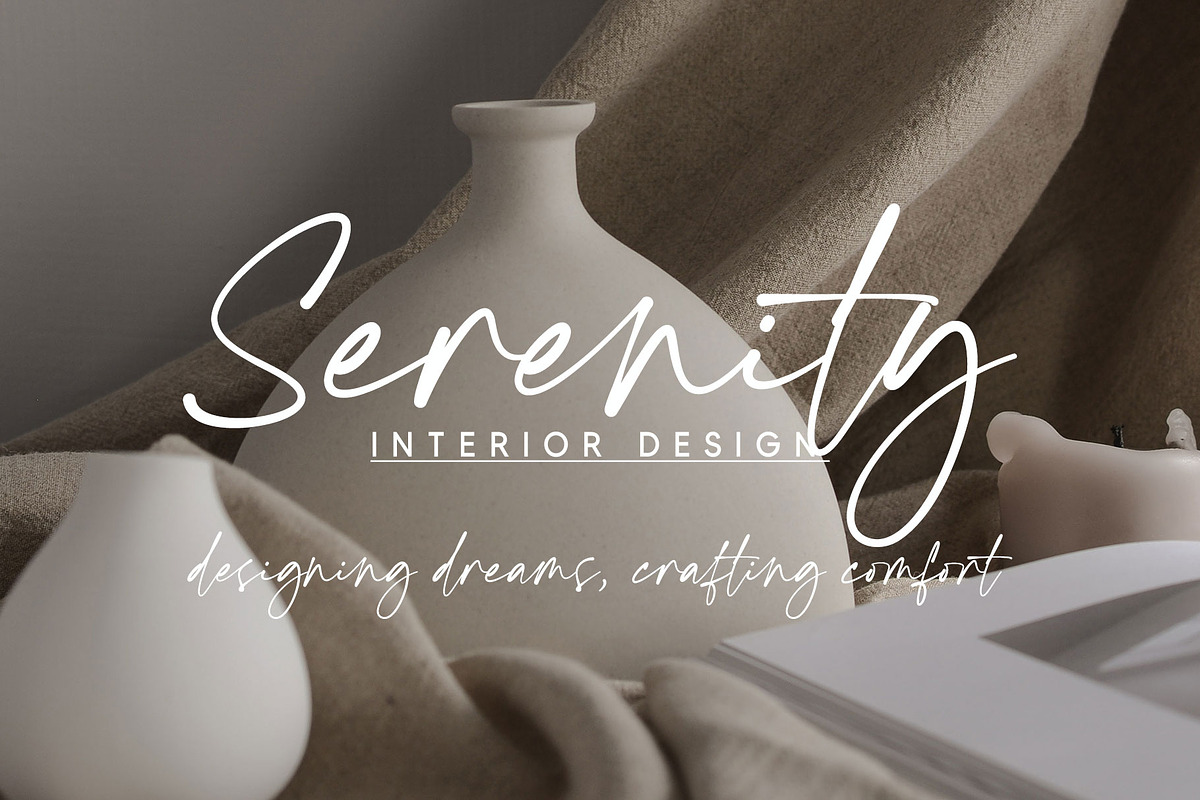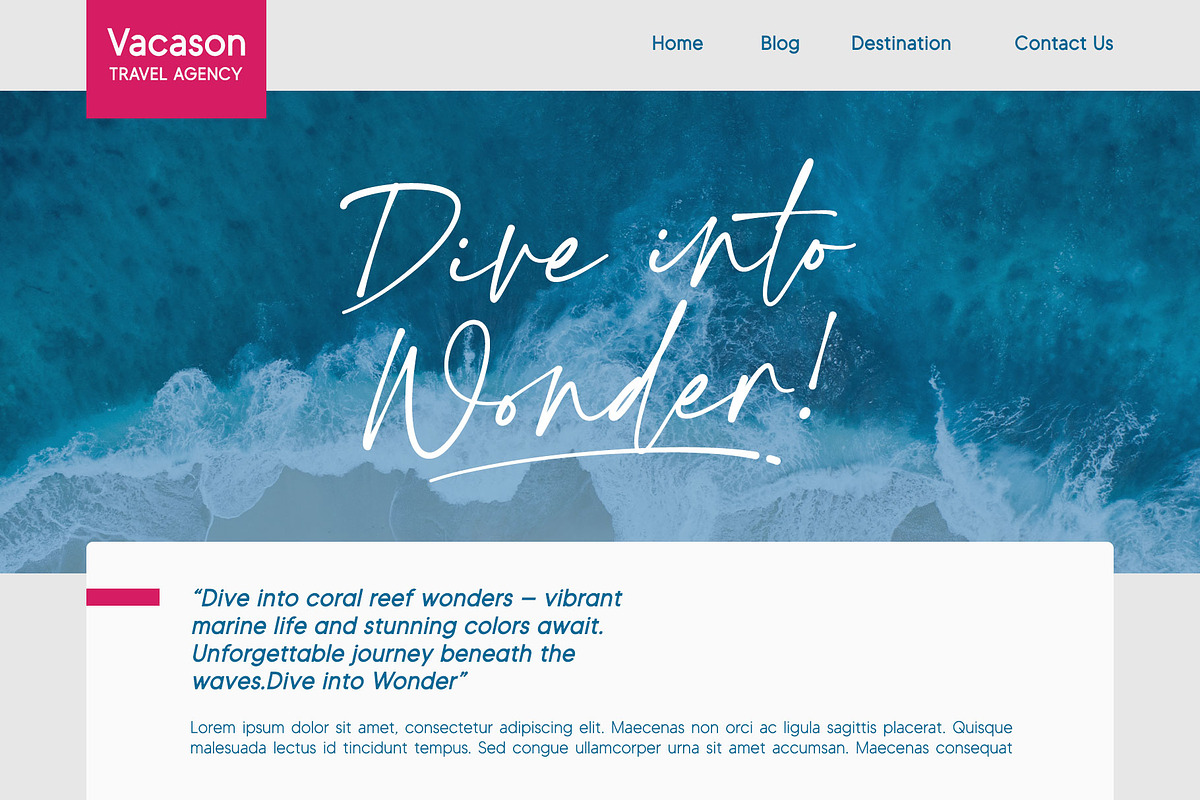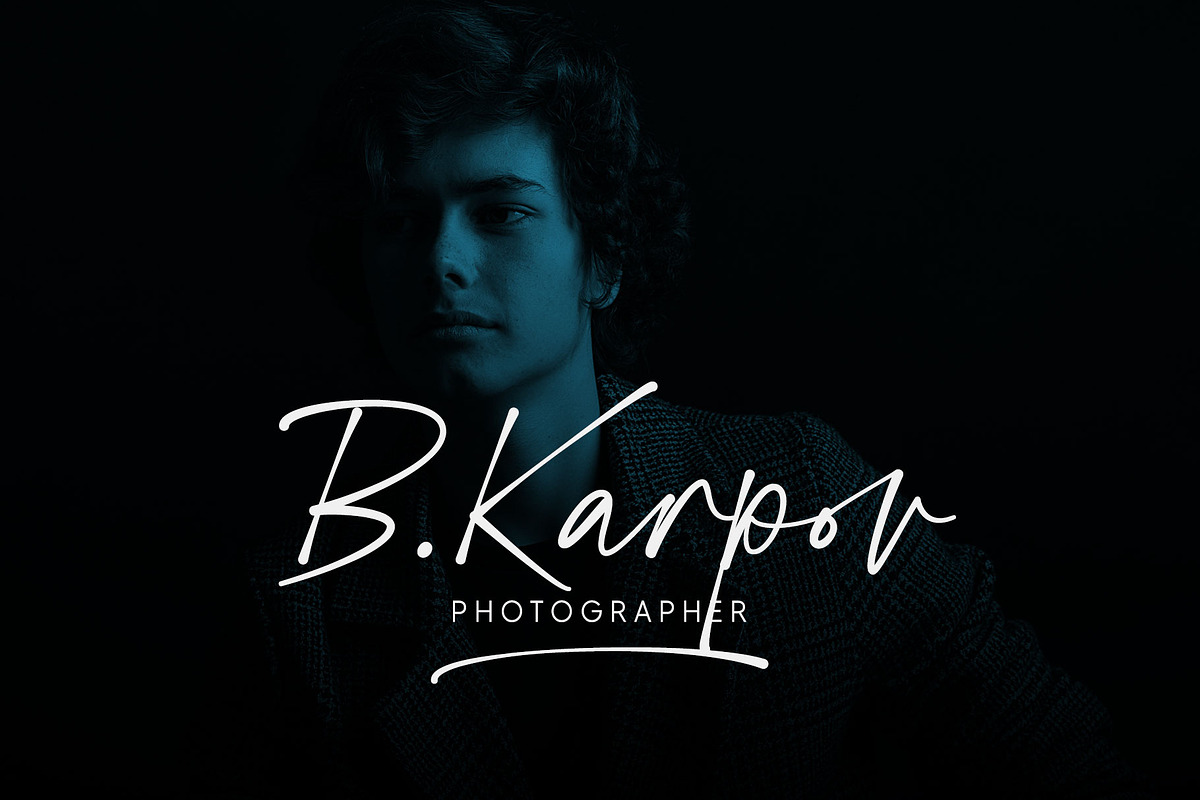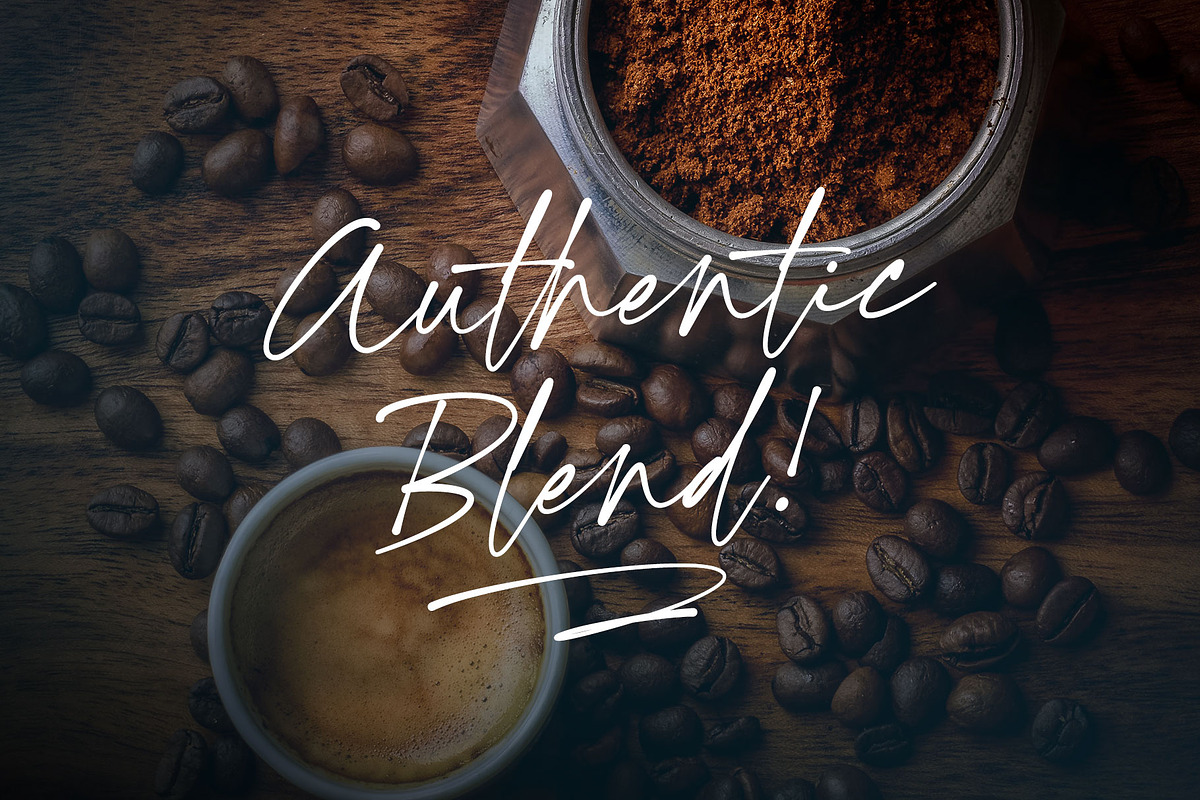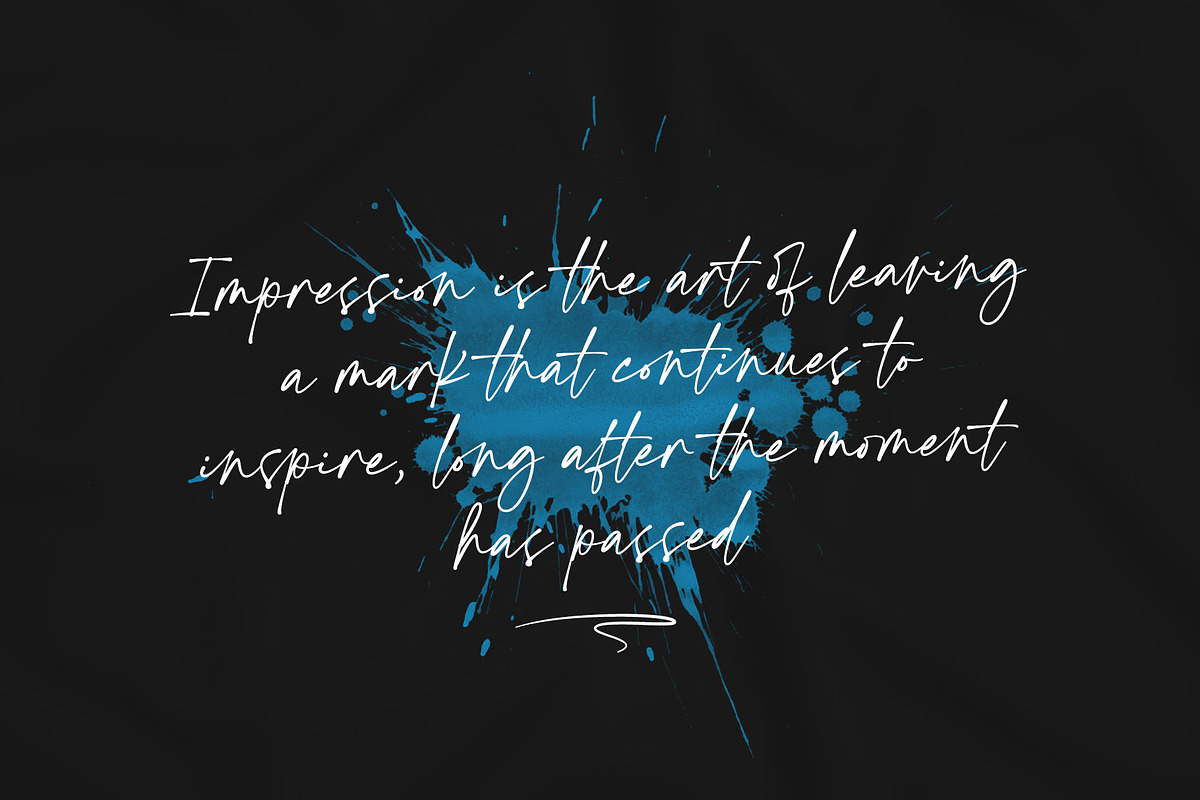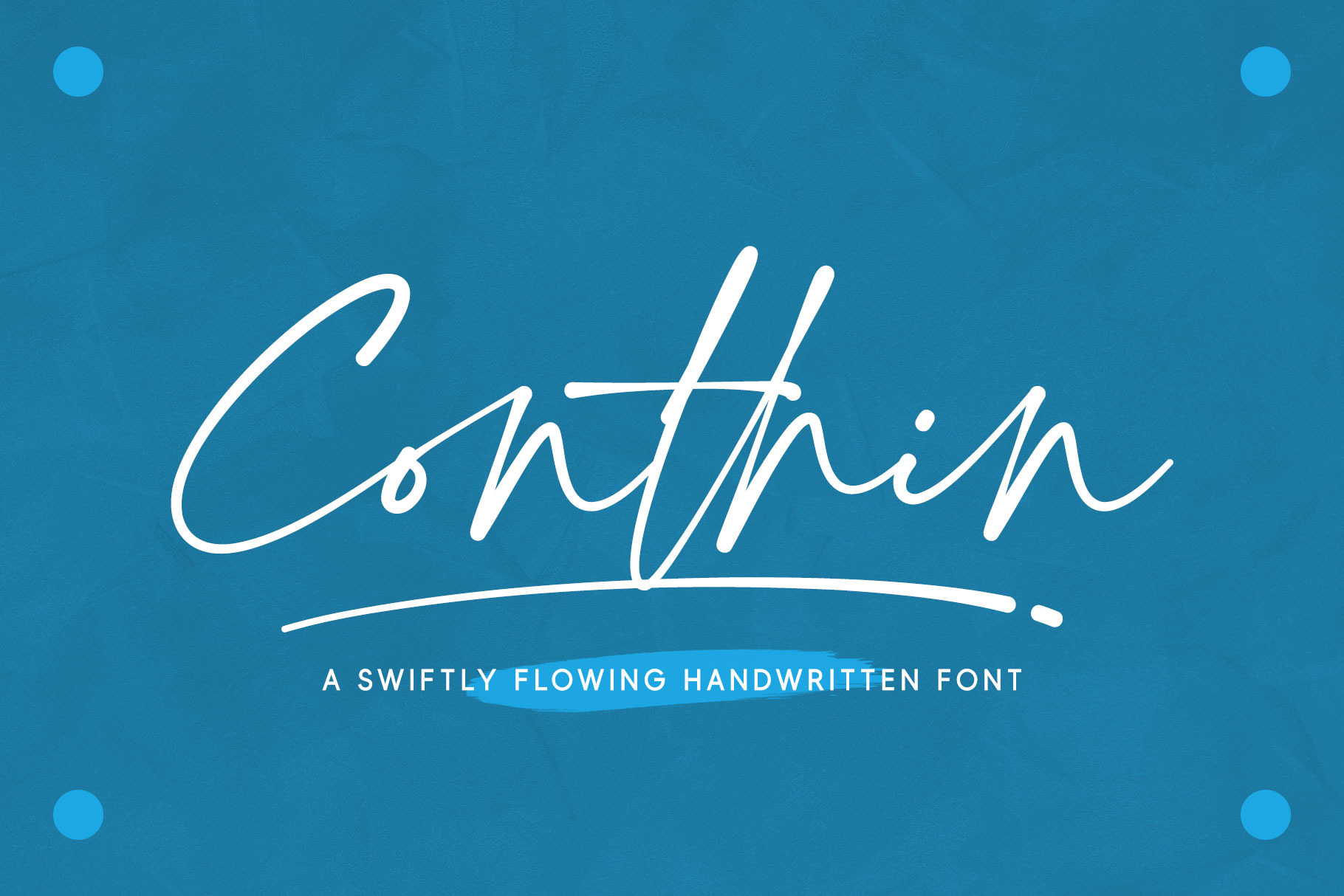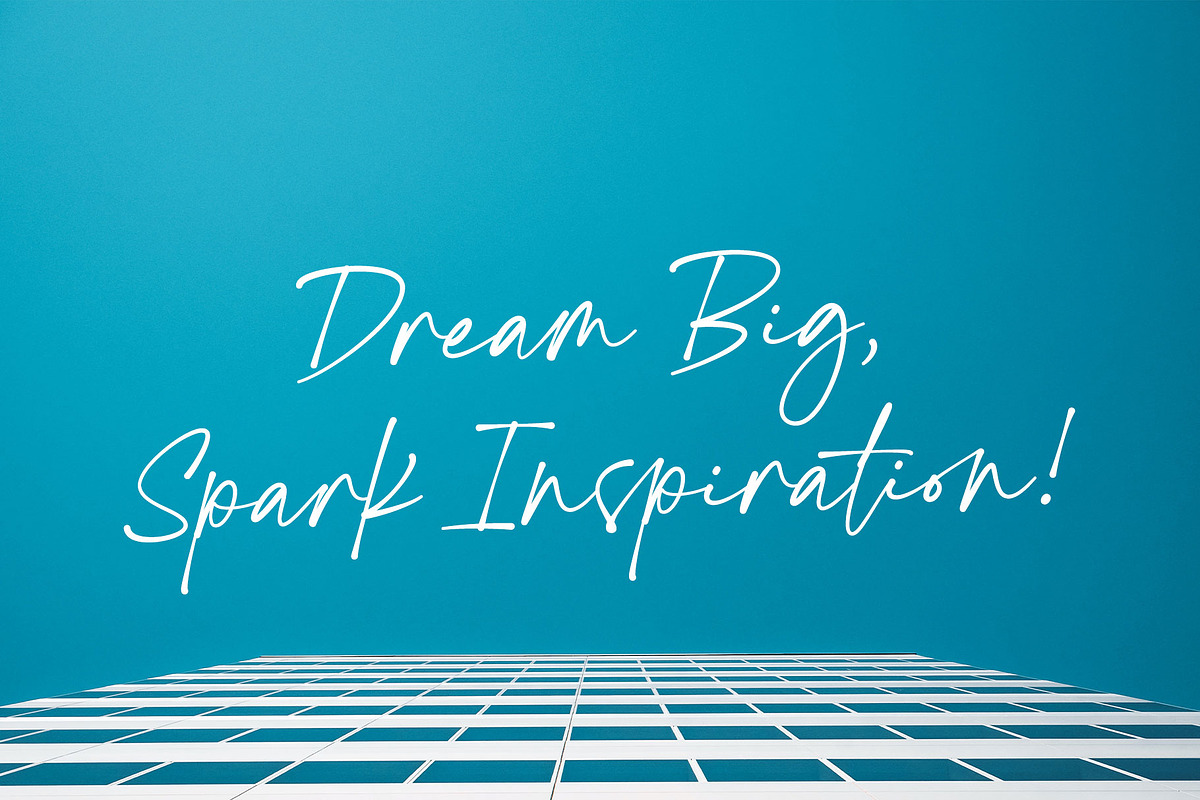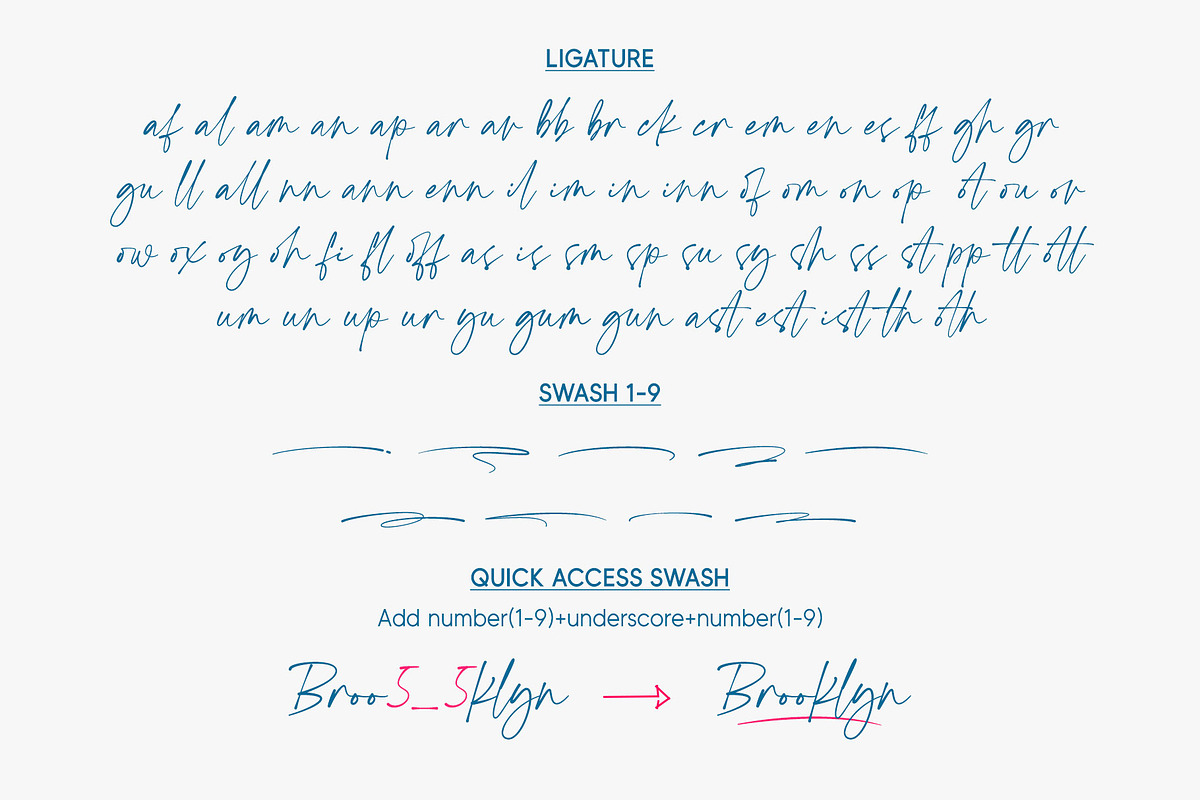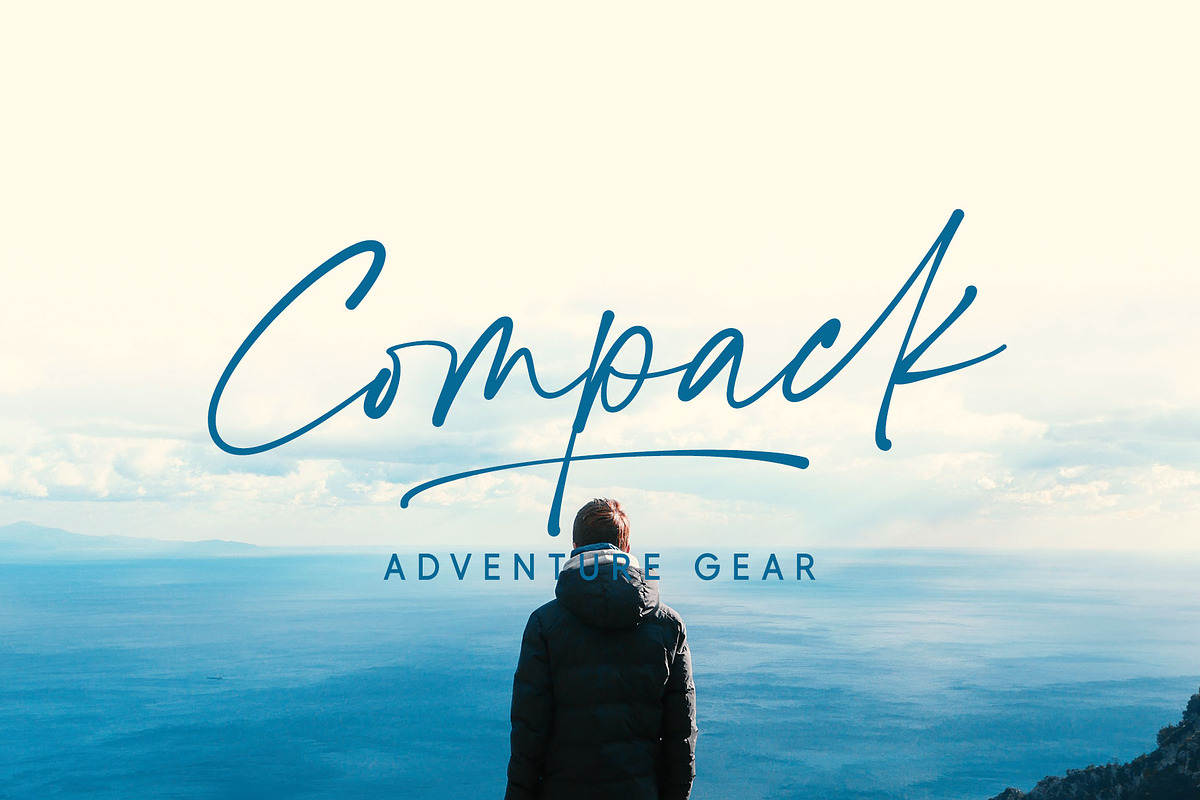
Conthin | Handwritten Font
Conthin - a swiftly flowing handwritten font, where thin, graceful strokes elegantly connect, containing the essence of fluid motion. This font is suitable for a wide range of projects, including headlines, logos, labels, branding, signatures, quotes, posters, and more.
- Swash: Add number (1–9) + underscore + number (1–9) Ex: 1_1, 2_2, 3_3, 4_4, 5_5, 6_6, 7_7, 8_8, 9_9